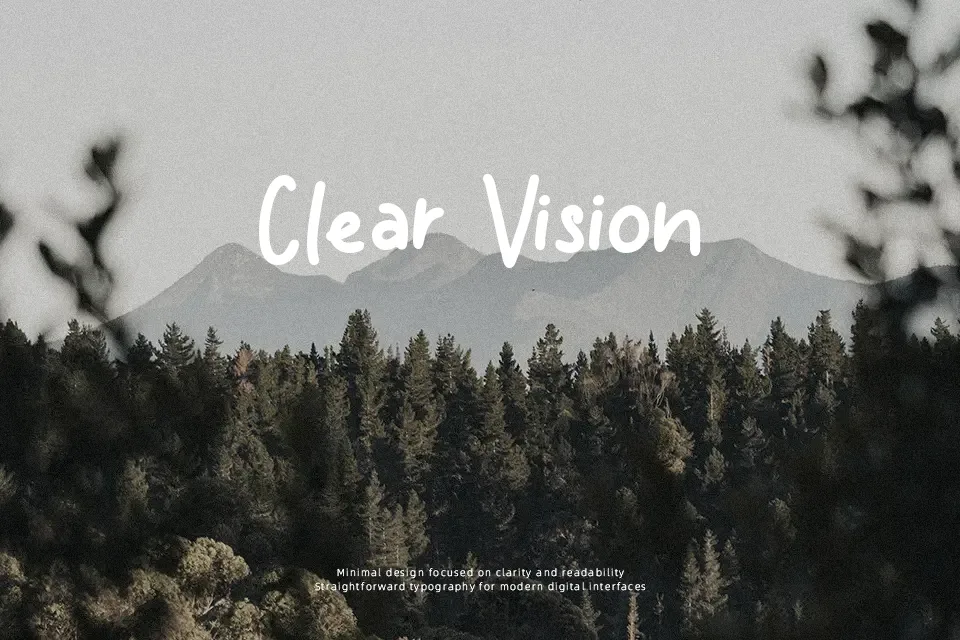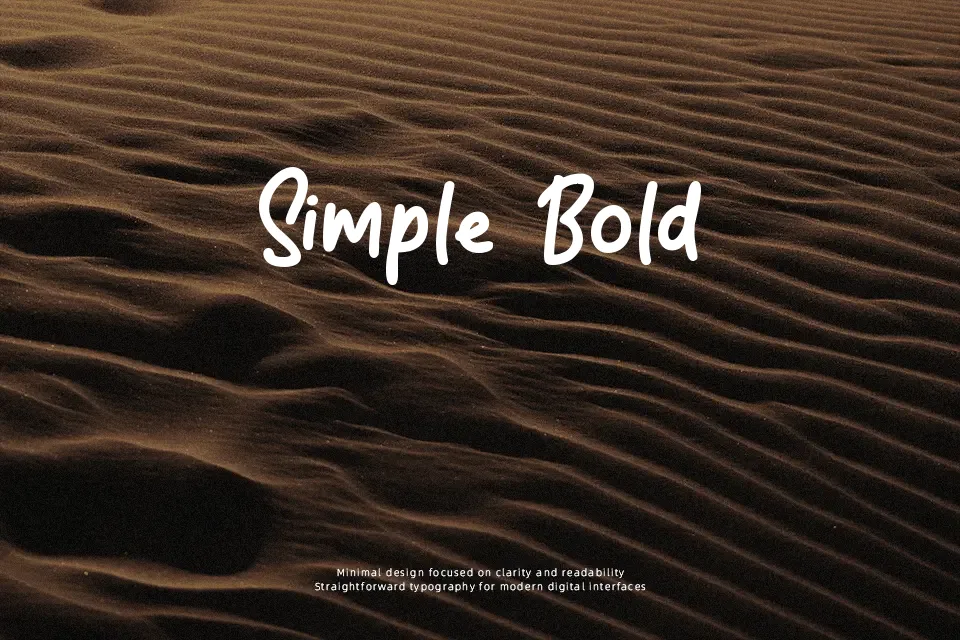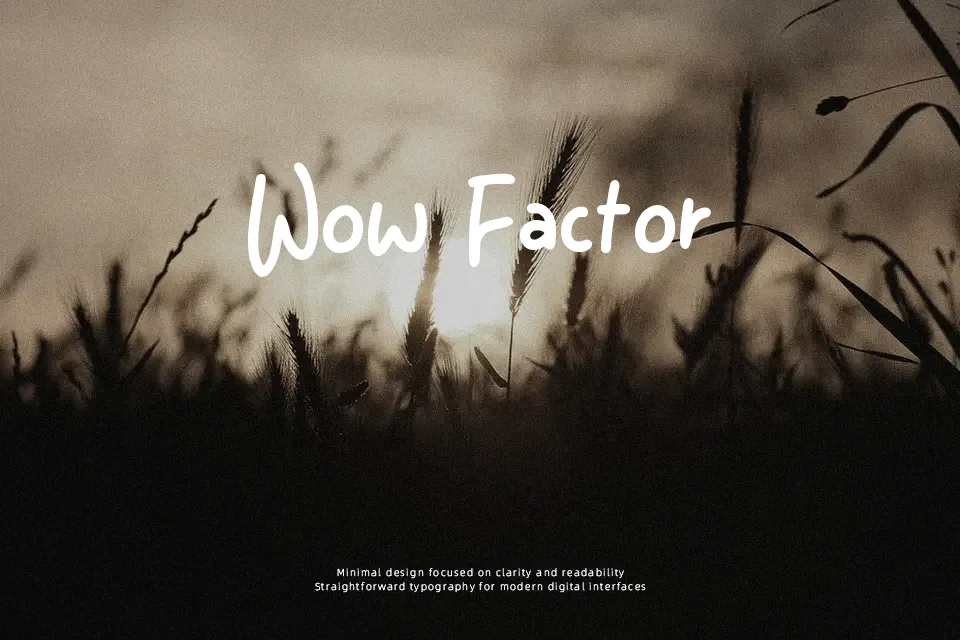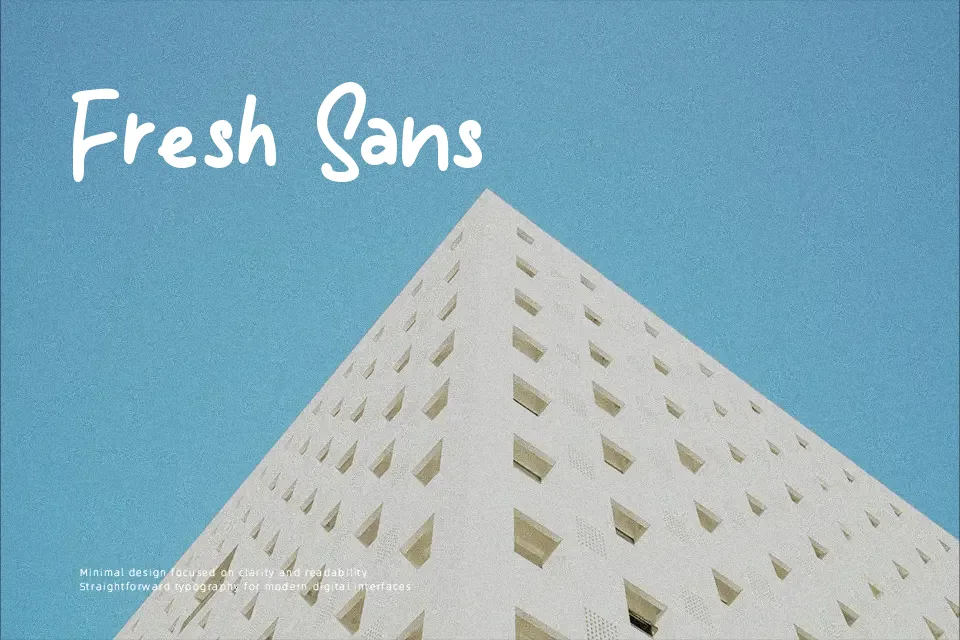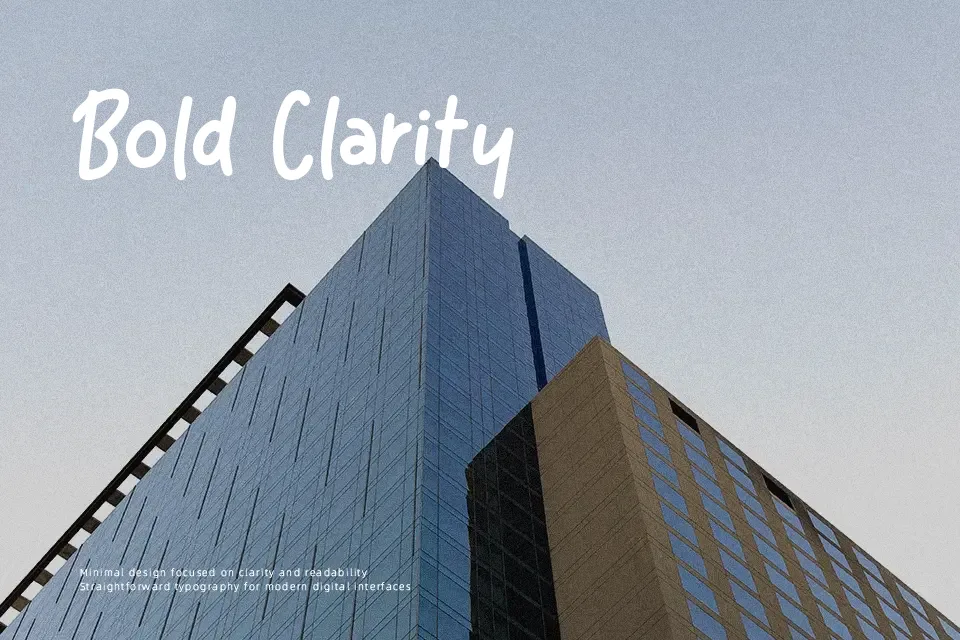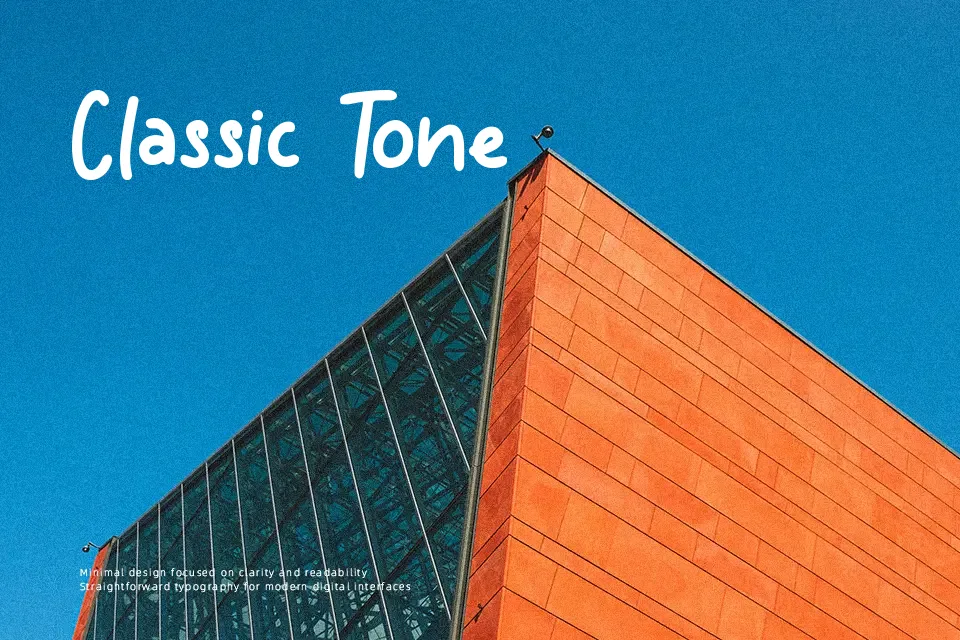
Tomcat Font
Characterized by bold marker curves and soft terminals, Tomcat Font establishes an energetic presence across large format creative work. The design features hefty, consistent stroke weights with negligible contrast, giving each letter a sturdy and friendly silhouette. Generous character spacing complements the wide proportions, ensuring that display headlines remain instantly recognizable from a distance. These buoyant letterforms excel on merchandise graphics, cartoon packaging, and playful poster headers. However, the heavy weight and informal geometry become difficult to decipher in extended paragraphs or compact interface labels. When restricted to brief, punchy phrases, the typeface provides delightful charm without compromising clarity.
Best For: children’s book covers, cartoon video titles, playful merchandise graphics
Not Ideal For: long paragraph text, formal business documents, small mobile interface labels